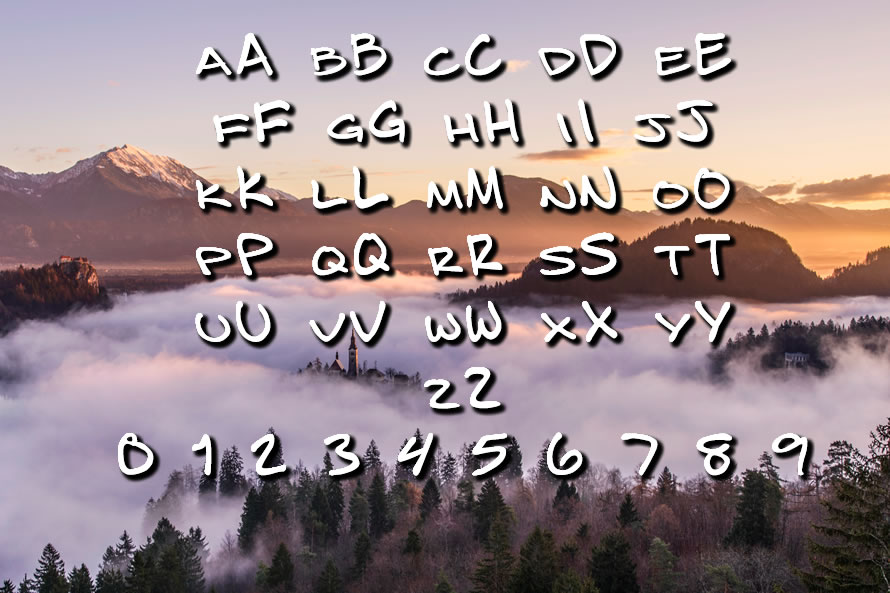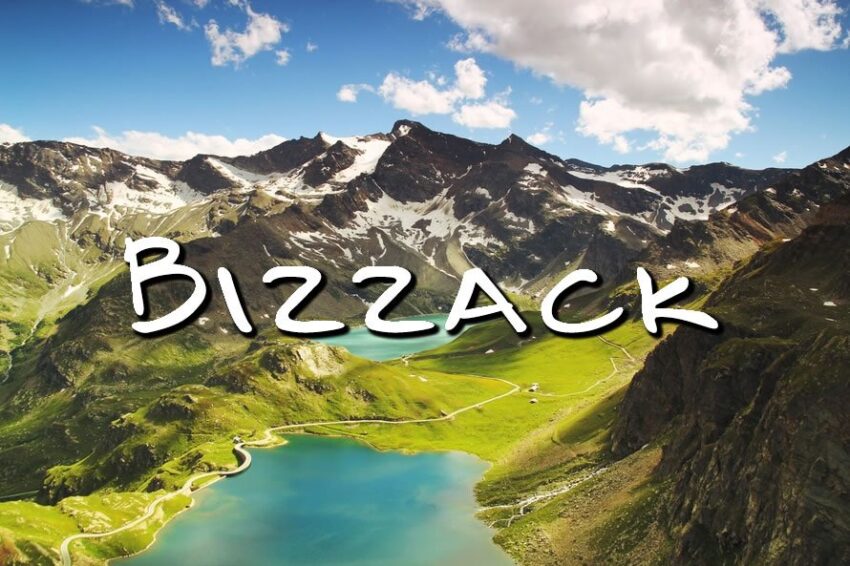
Introduction to Bizzack Font
Bizzack is the premier font of Nick Bizzack.
This handwritten font is smooth, fun, and works for many types of projects The letters are clear to read and are suitable for both digital and print.